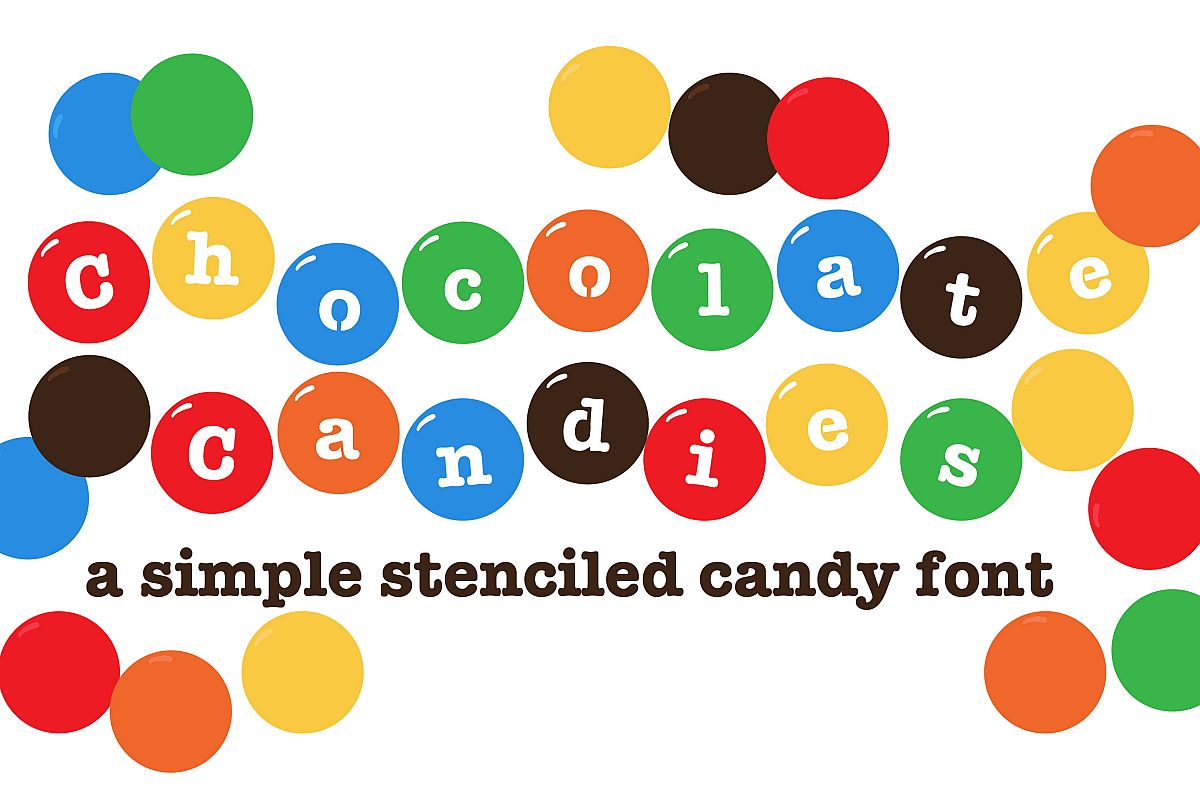
PN Chocolate Candies
This font is a cute font made to look like typical chocolate candies. This is a great font for crafty as the inside letters are stenciled.